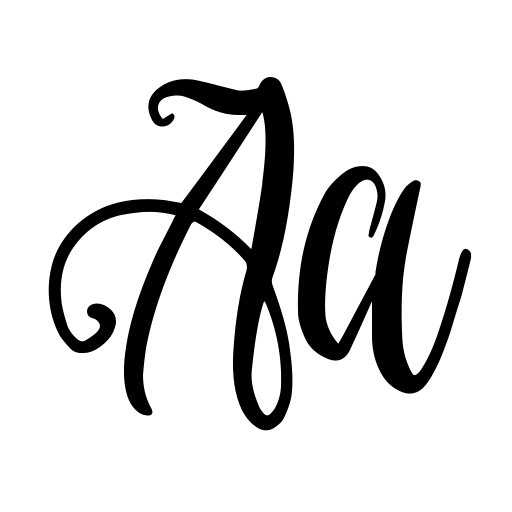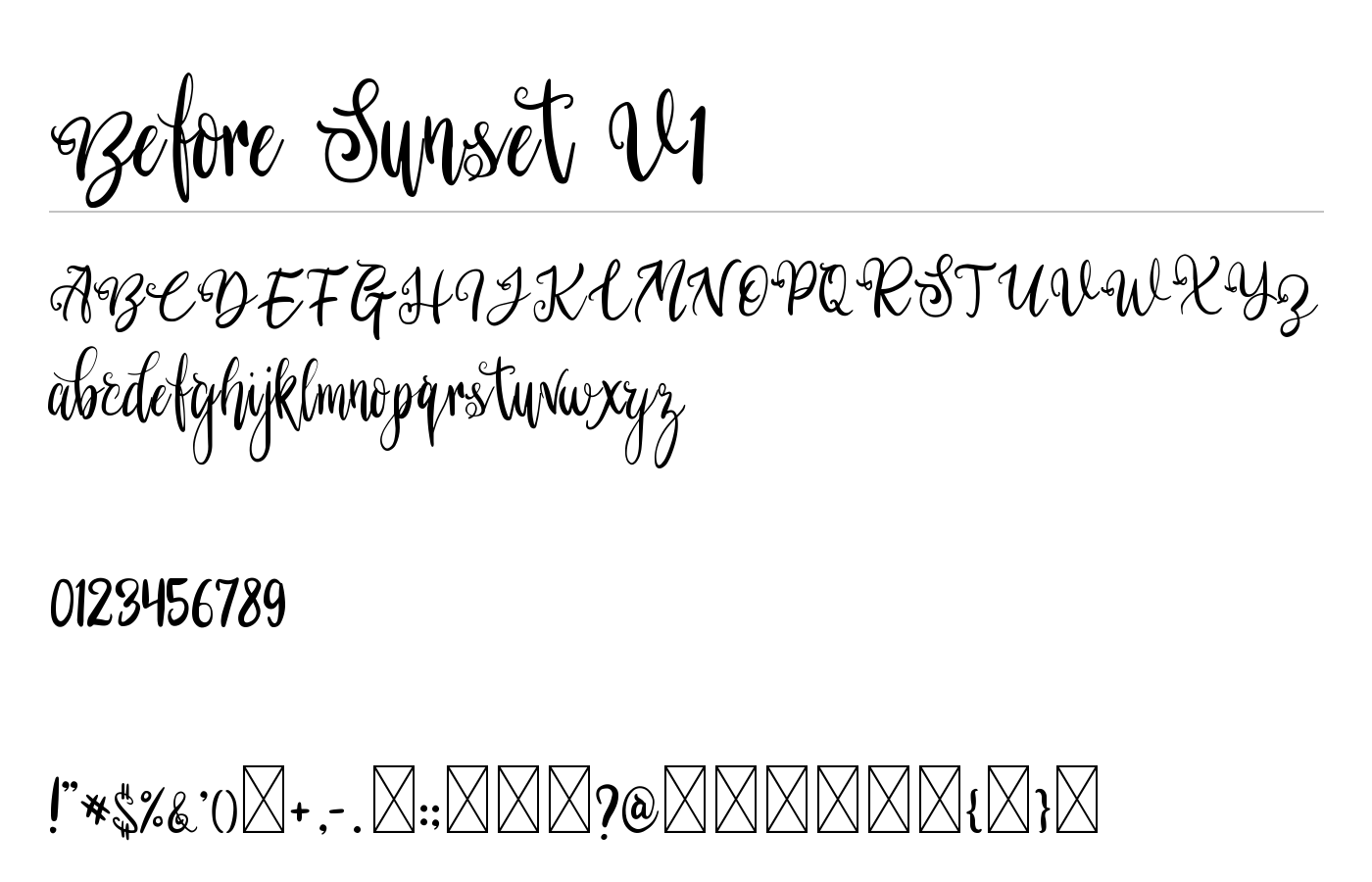
Before Sunset V1 is a lively script font with elegant, flowing strokes and a playful character. Its tall, narrow letterforms and delicate swashes create a handwritten feel that works beautifully for invitations, logos, and creative branding seeking a personal, charming touch. This font’s stylish, casual flair makes it ideal for projects that want to convey warmth and artistic sophistication.
Before Sunset V1 Font
About Before Sunset V1 Font